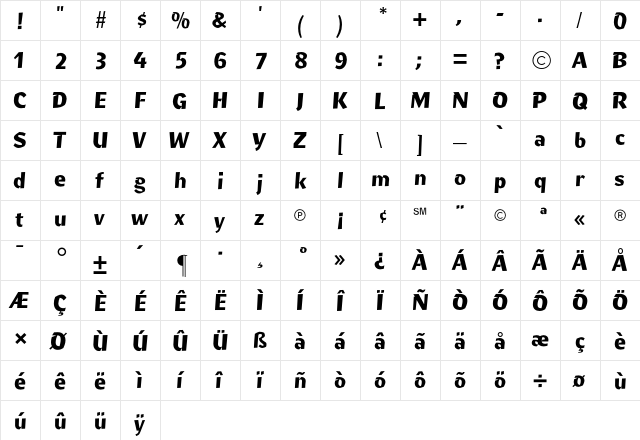
Ritmo CG Bold Regular
| Foundry | Agfa Corporation |
Design Context for Ritmo CG Bold Typeface
Ritmo CG Bold takes a measured approach to typography — its balanced proportions and neutral character make it a reliable workhorse for both digital and print work. The heavy weight commands attention and anchors typographic hierarchies.